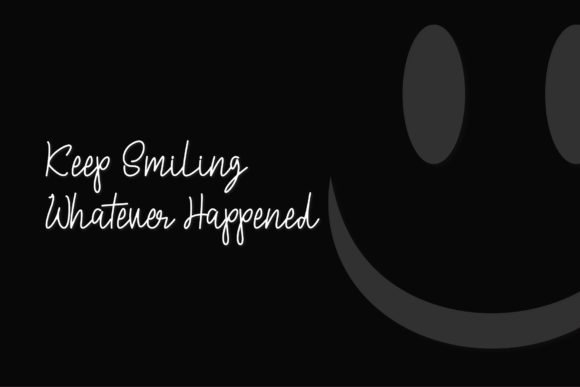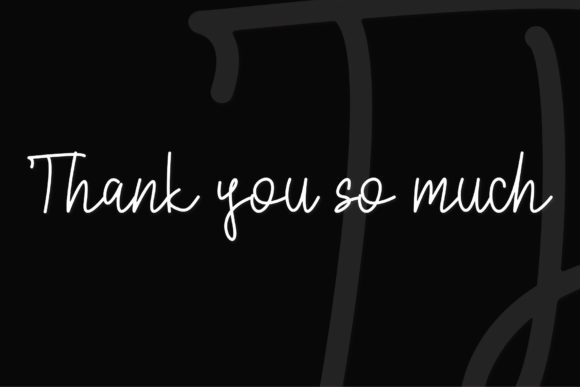
Unleashing Your Creativity with Ditho Font
Have you ever been stuck in a creative rut, staring blankly at your computer screen, wondering what to create next? For many designers, this is a familiar feeling. But what if I told you there’s a solution to break free from this creative block? Introducing the Ditho Font, a sweet and friendly handwritten font that’s about to become your new best friend.
The Ditho Font is more than just a font – it’s a tool that can elevate your designs and bring a touch of personality to your work. With its natural and unique style, the possibilities are endless. Whether you’re creating a branding package, a social media graphic, or a digital invitation, the Ditho Font is sure to add a special something to your design.
As a designer, you know that having the right tools can make all the difference. The Ditho Font is a valuable addition to any design arsenal, and its versatility makes it a must-have for any creative project. So why not give it a try and see what amazing things you can create with the Ditho Font?
Ditho Font Key Features
- Unique Characteristics: Ditho Font features a unique blend of modern and vintage elements, with intricate details and subtle texture, giving it a distinctive and eye-catching look.
- Font Weight: Ditho Font is available in 3 different font weights: Light, Regular, and Bold, allowing designers to choose the perfect weight to match their design style.
Ditho Font Review
I’ve had the chance to work with the Ditho Font, and I must say it’s an interesting choice. Here are my thoughts.
- The Ditho Font has a unique, modern feel that’s perfect for digital interfaces and minimalistic designs.
- The font is highly customizable, making it easy to adjust the weights and styles to fit your design needs.
- The font supports a wide range of languages, making it a great choice for international projects.
- The font’s readability can be a concern, especially at smaller font sizes.
- The Ditho Font may not be the best choice for body text, as it can be tiring to read in large quantities.
- The font’s expressiveness may be too much for some projects, making it hard to convey a clear message.
The Ditho Font is a solid choice for projects that require a modern, minimalist aesthetic. While it may have some limitations, it’s a versatile font that can add a touch of sophistication to your designs. I’d recommend using it for headings, titles, or other high-impact elements, but use caution when using it for body text.
Tips for Getting the Most Out of Ditho Font
Use Ditho font for headings and titles to add a touch of elegance to your design. Experiment with different font sizes and colors to create a unique look. Also, use the font in combination with other fonts to create a visually appealing design.
Use Ditho font for: wedding invitations, business cards, brochures, and any design that requires a touch of sophistication and elegance. The font is also great for creating a modern and minimalist look.